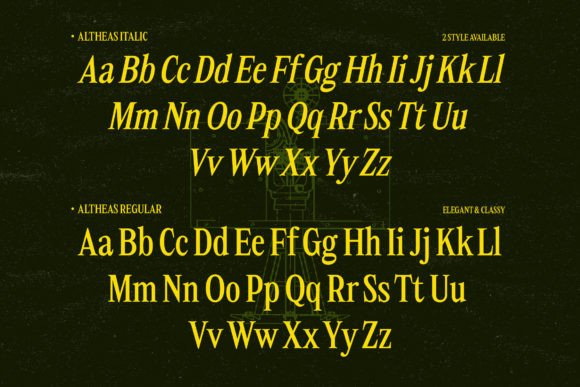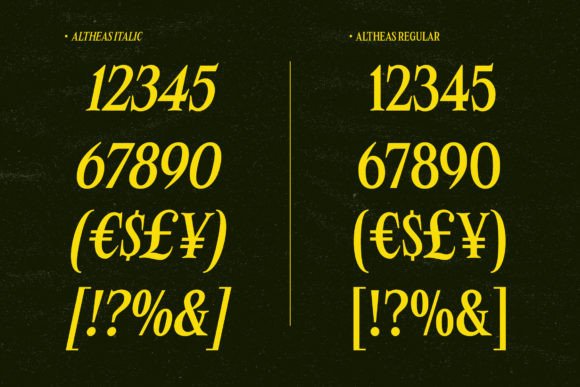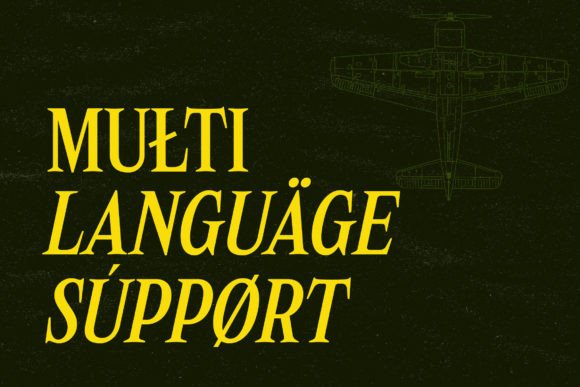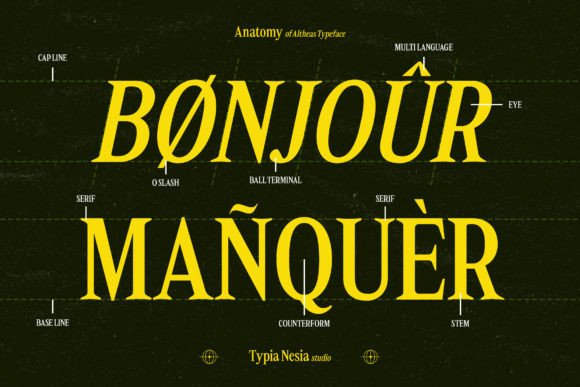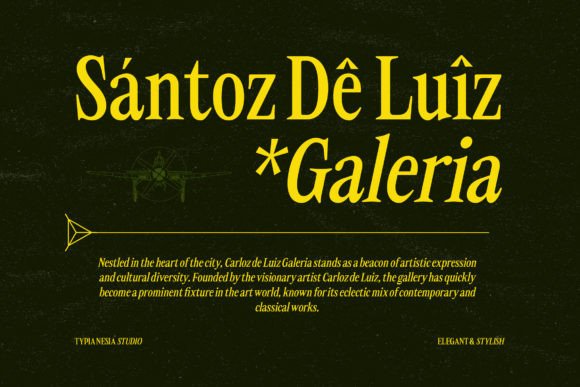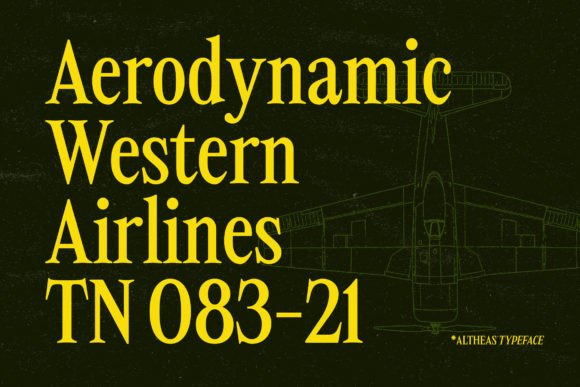
The Designer’s Dilemma: Finding Elegance with Altheas Font
I still remember the design project that had me scratching my head – a wedding invitation that needed a touch of classic sophistication. I had tried a dozen fonts, but none seemed to capture the elegance I was looking for. That’s when I stumbled upon Altheas, a Regular Italic Serif Font that instantly became my go-to. Its modern elegance and classic display features made it the perfect fit for my project, and I knew I had to share it with fellow designers and creatives.
An Honest Review of Altheas Font
What I Love About Altheas ✨
- ✅ Elegant and Sophisticated: Altheas brings a touch of classic elegance to any design, making it perfect for projects that require a timeless aesthetic.
- ✅ Fluid and Graceful: The italicized serif characters create a beautiful flow, adding sophistication to any text.
- ✅ Versatile: From branding to editorial design, book covers to wedding invitations, Altheas is a versatile font that can be used in various projects.
- ✅ Easy to Read: Despite its elegant appearance, Altheas remains highly legible, making it perfect for body text and headlines.
While Altheas is an excellent font, there are a few things to keep in mind:
- 🤔 Limited Use in Non-Formal Contexts: Altheas’s elegant and classic design might not be suitable for very casual or playful projects.
- 🤔 Requires Attention to Line Spacing: To maintain readability, it’s essential to adjust line spacing according to the font size and style.
The Backstory of Altheas Font
Altheas was designed with the goal of creating a timeless and elegant font that would bring sophistication to any design. Inspired by classic serif fonts, Altheas’s creator aimed to craft a font that would be both beautiful and functional. The result is a font that exudes classic elegance with a modern twist.
Q: What type of projects is Altheas best suited for?
A: Altheas is ideal for projects that require a classic and timeless aesthetic, such as branding, editorial design, book covers, wedding invitations, and elegant product packaging.
Q: Can I use Altheas for body text?
A: Yes, Altheas is highly legible and can be used for body text. However, it’s recommended to adjust line spacing and font size to ensure optimal readability.
Q: Does Altheas support OpenType features?
A: Yes, Altheas supports OpenType features, including stylistic alternates and glyphs. This allows you to add more style and personality to your text.